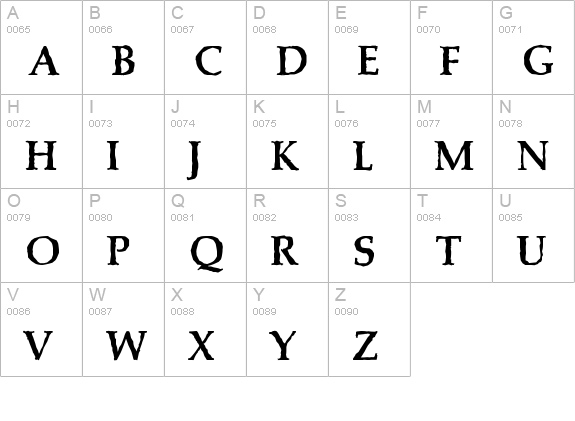
MarathonAntique-Bold Font Details
MarathonAntique-Bold is a strong, high-contrast variant in the MarathonAntique typeface family \xE2\x80\x94 well suited to headlines, attention-grabbing titles, and strong calls-to-action.
Introducing MarathonAntique-Bold, a timeless and bold font that exudes elegance and sophistication. With its vintage charm and classic appeal, this font is perfect for creating eye-catching designs that stand out from the crowd. The strong and sturdy letterforms of MarathonAntique-Bold make it ideal for headlines, logos, and branding projects. What sets MarathonAntique-Bold apart is its versatility and ability to work well across various design applications. Whether you're designing a poster, packaging, or website, this font will add a touch of refinement and style to your project. The bold weight of MarathonAntique-Bold commands attention and ensures your message is seen and heard. Best of all, MarathonAntique-Bold is available for free download at FontsMarket.com. Simply visit the website to get your hands on this stunning font and start using it in your designs today. Don't miss out on this opportunity to elevate your projects with the timeless beauty of MarathonAntique-Bold.